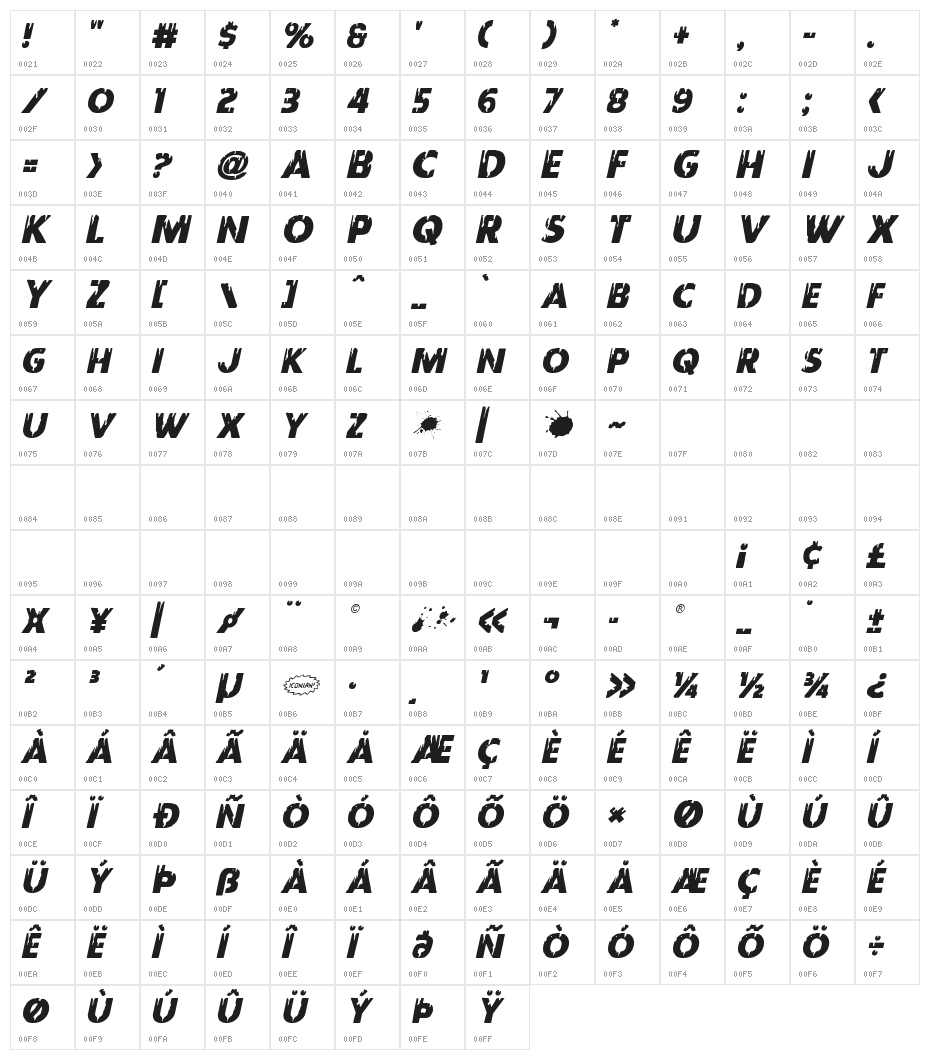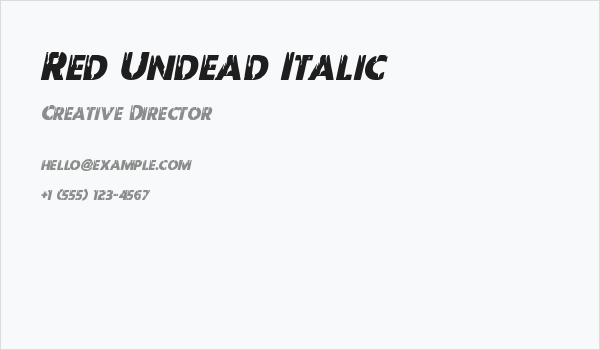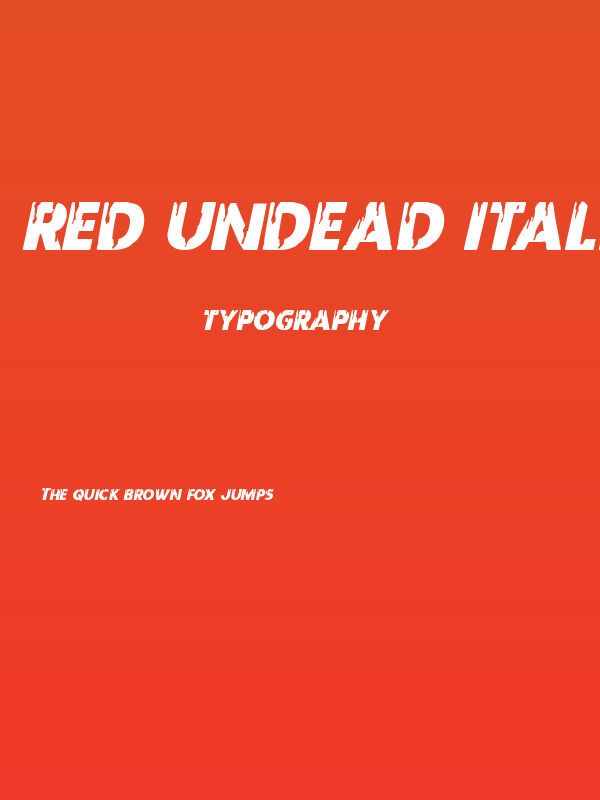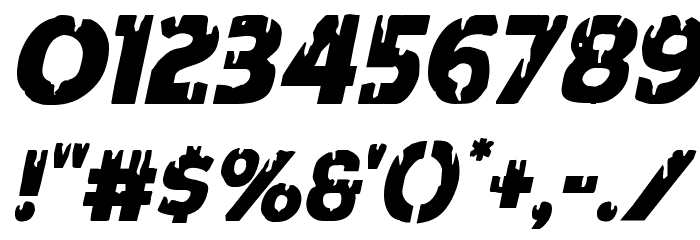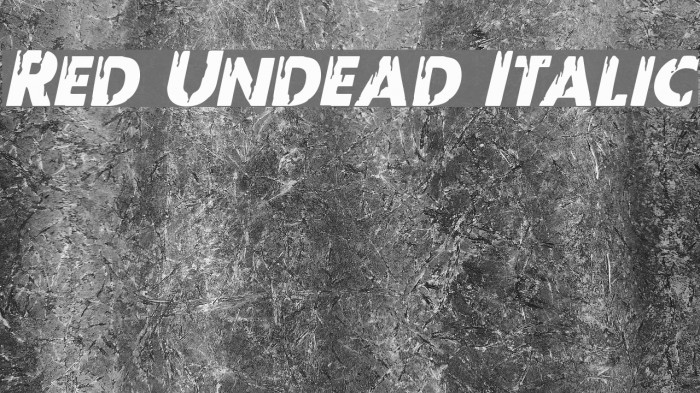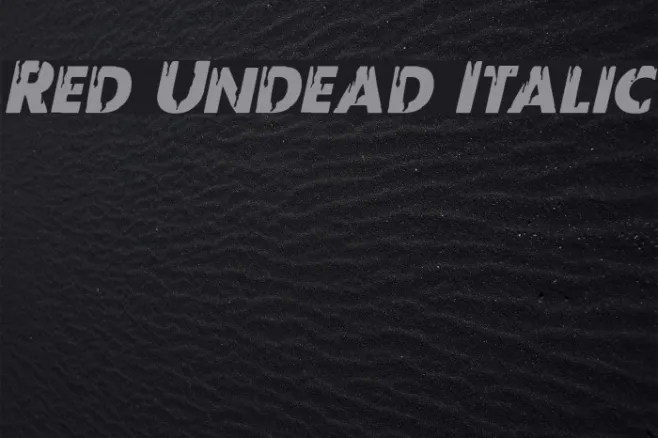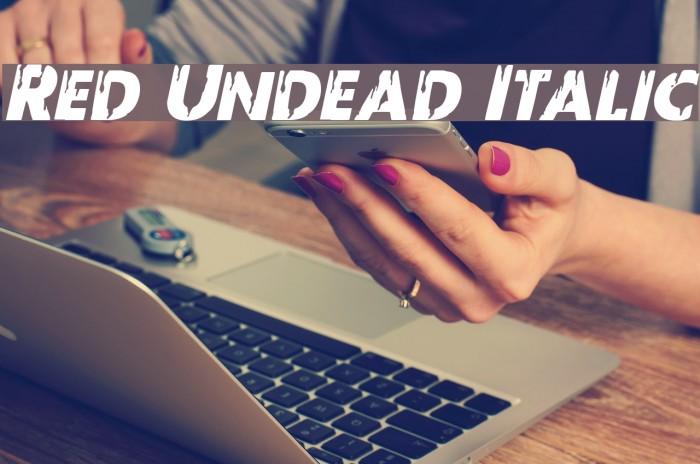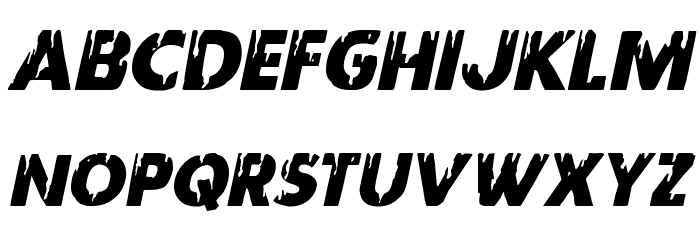
Red Undead Italic Font
Red Undead Italic Description
This font features a bold and dynamic style with a distressed, grunge-like appearance. The characters are italicized, giving them a forward-leaning posture that adds to their energetic feel. The rough edges and irregular shapes create a sense of movement and chaos, making it ideal for projects that require a dramatic and edgy look. The uppercase and lowercase letters maintain a consistent style, while the numbers and special characters are equally bold and impactful. This font is perfect for designs that aim to capture attention and convey a sense of urgency or excitement.
| Proposed Projects | Ideal for horror-themed posters, edgy branding, video game titles, and music album covers. |